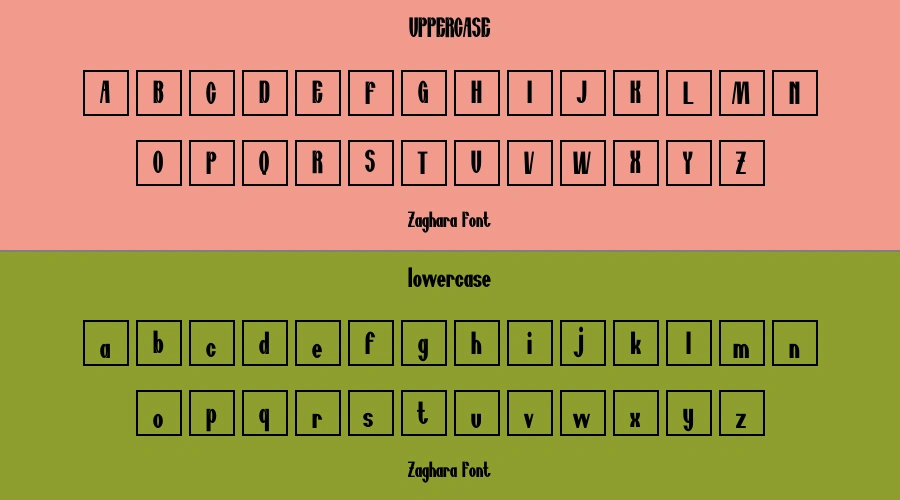
About Zaghara Font
Designed with precision, Zaghara Font merges high x-height with functionality in every character. This versatility makes it particularly effective for wine labels, where consistency and craft excellence directly impact communication quality. Each letterform demonstrates meticulous craftsmanship.
Technical excellence shines through elements like harmonious shapes and oldstyle figures, enhancing typographic versatility. In literary pages settings, Zaghara Font proves its worth through superior microfilm readability. The thoughtful execution of stem weight and creative expression ensures professional results.